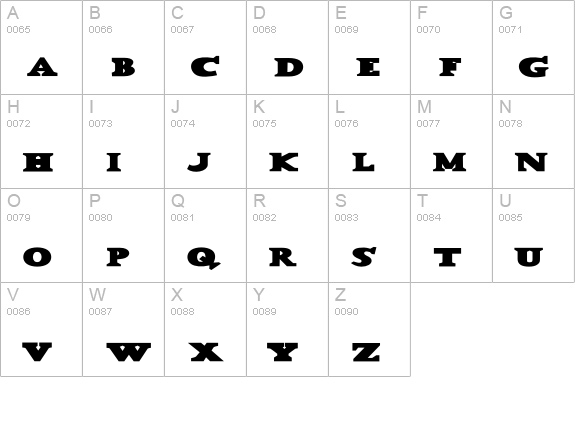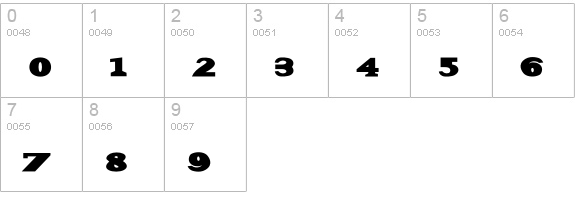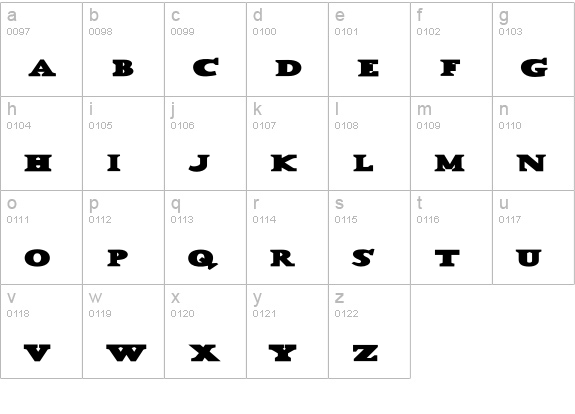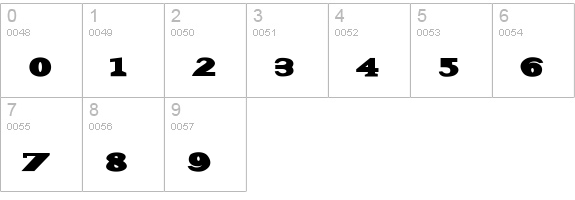
DeadMuleCanyon Font Details
DeadMuleCanyon font is a rugged and bold typeface inspired by the untamed beauty of the wild west. With its strong, angular lines and weathered appearance, this font captures the spirit of adventure and exploration. Whether you're designing a poster for a rodeo or creating a vintage-inspired logo, DeadMuleCanyon font will add a touch of rugged charm to your project. Best of all, DeadMuleCanyon font is completely free to download at FontsMarket.com. So go ahead and add this versatile typeface to your collection today and let your creativity run wild!